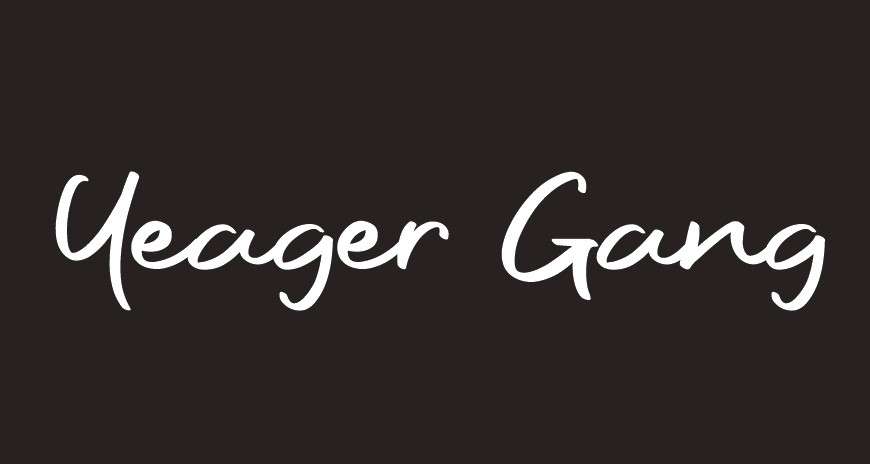
Discover the fantastic Yeager Gang Font, a versatile brush-script typeface with a variety of styles and exciting features perfect for any project. Dive into the world of creative possibilities with this amazing font that can bring your designs to life. Start using Yeager Gang Font today and unleash your creativity like never before!
The font is easily used for creating logos, headlines, and posters. You can turn your imagination into the perfect design. If you want to use this awesome font in your projects then don’t wait too much Just download and use this font for all kinds of projects,
You can take a view of the typeface by viewing the image below. The font contains amazing handwritten strokes which will provide you amaze look that can easily attract viewers.
Now, the time has come to view the sample the of great typeface that is best for pairing with the combination of script mt bold. Below, we shared an image that contains the glyphs and characters of this amazing font which creates the best designs in Adobe Photoshop and Adobe Illustrator.